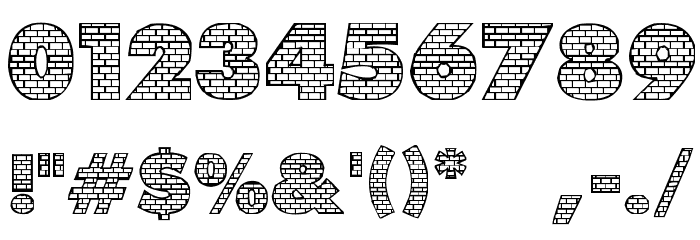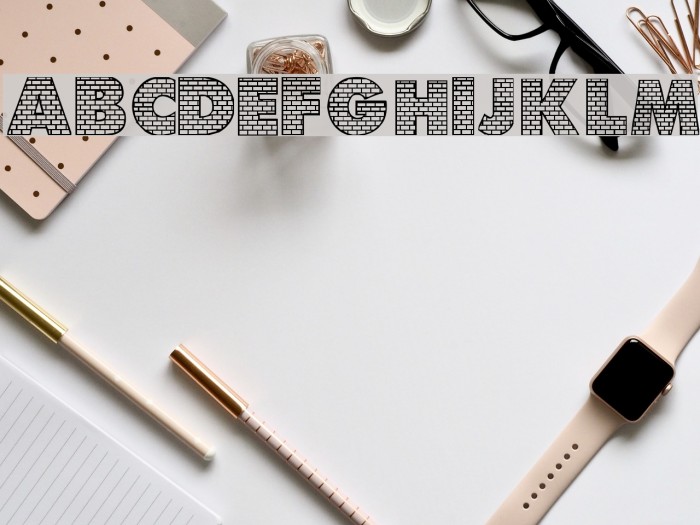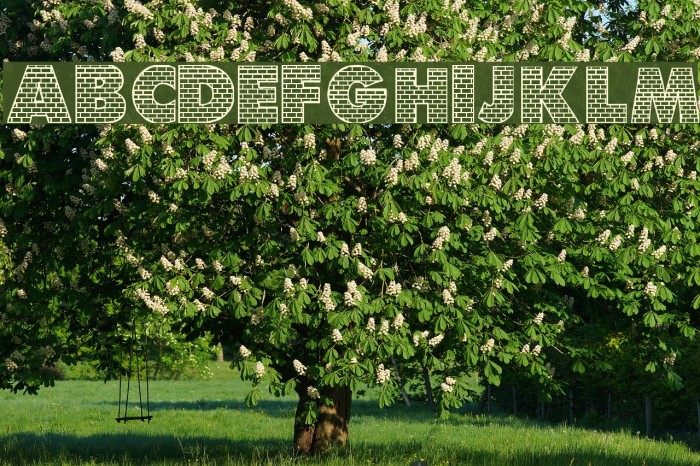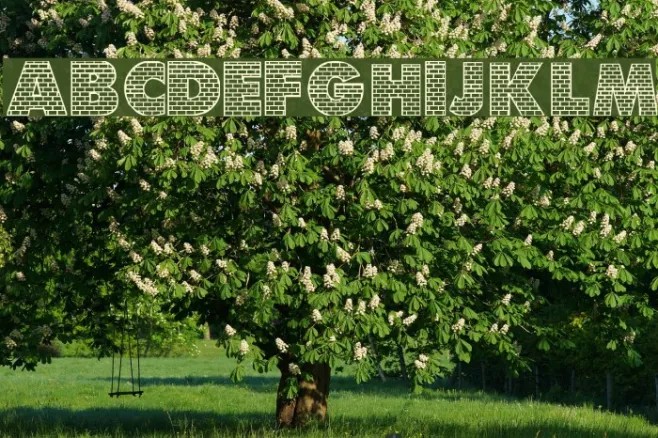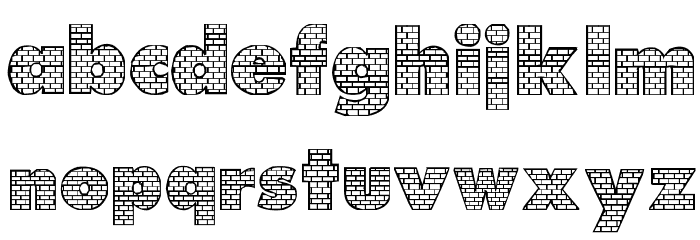
Bricks Font
Bricks Description
This font features a unique and playful design where each character is filled with a brick pattern, creating a textured and dimensional effect. The letters are bold and blocky, making them stand out with a strong presence. The brick motif adds a sense of structure and solidity, reminiscent of urban architecture or construction themes. This font is highly decorative and is best used in contexts where a fun and eye-catching appearance is desired. The characters are evenly spaced, with a consistent pattern throughout, ensuring readability despite the intricate design.